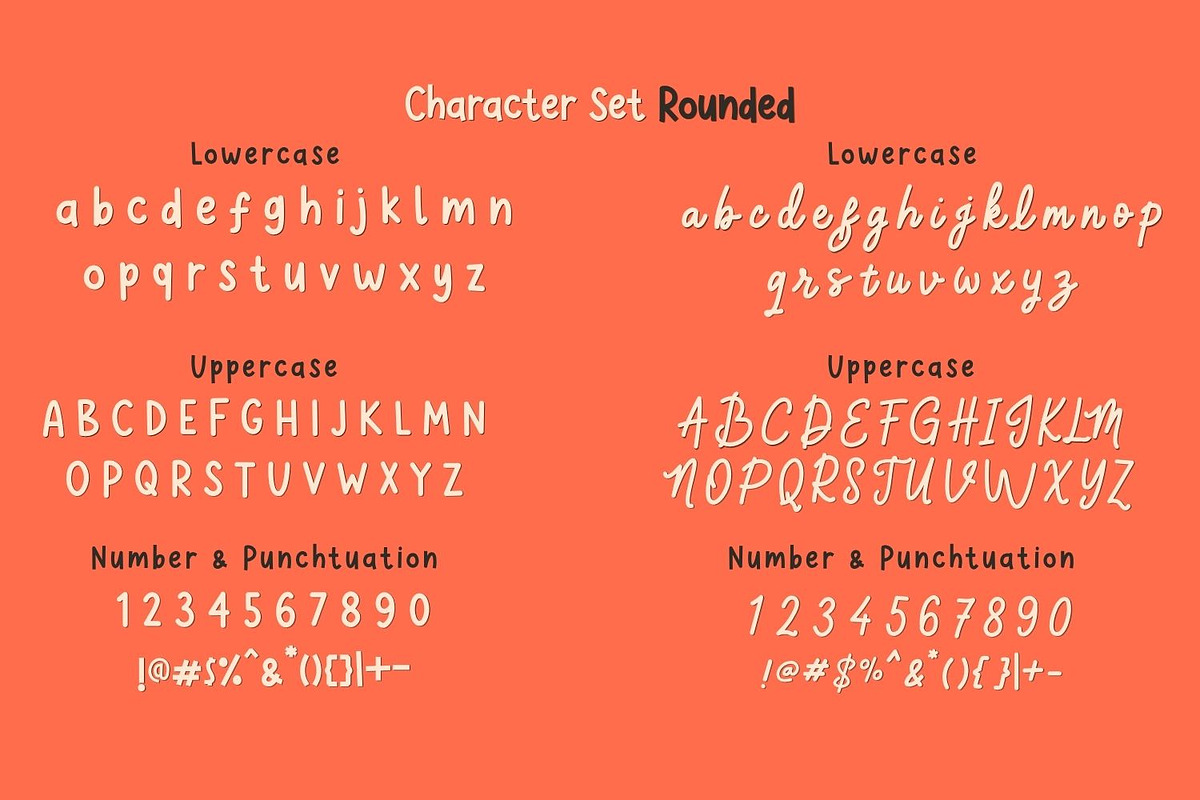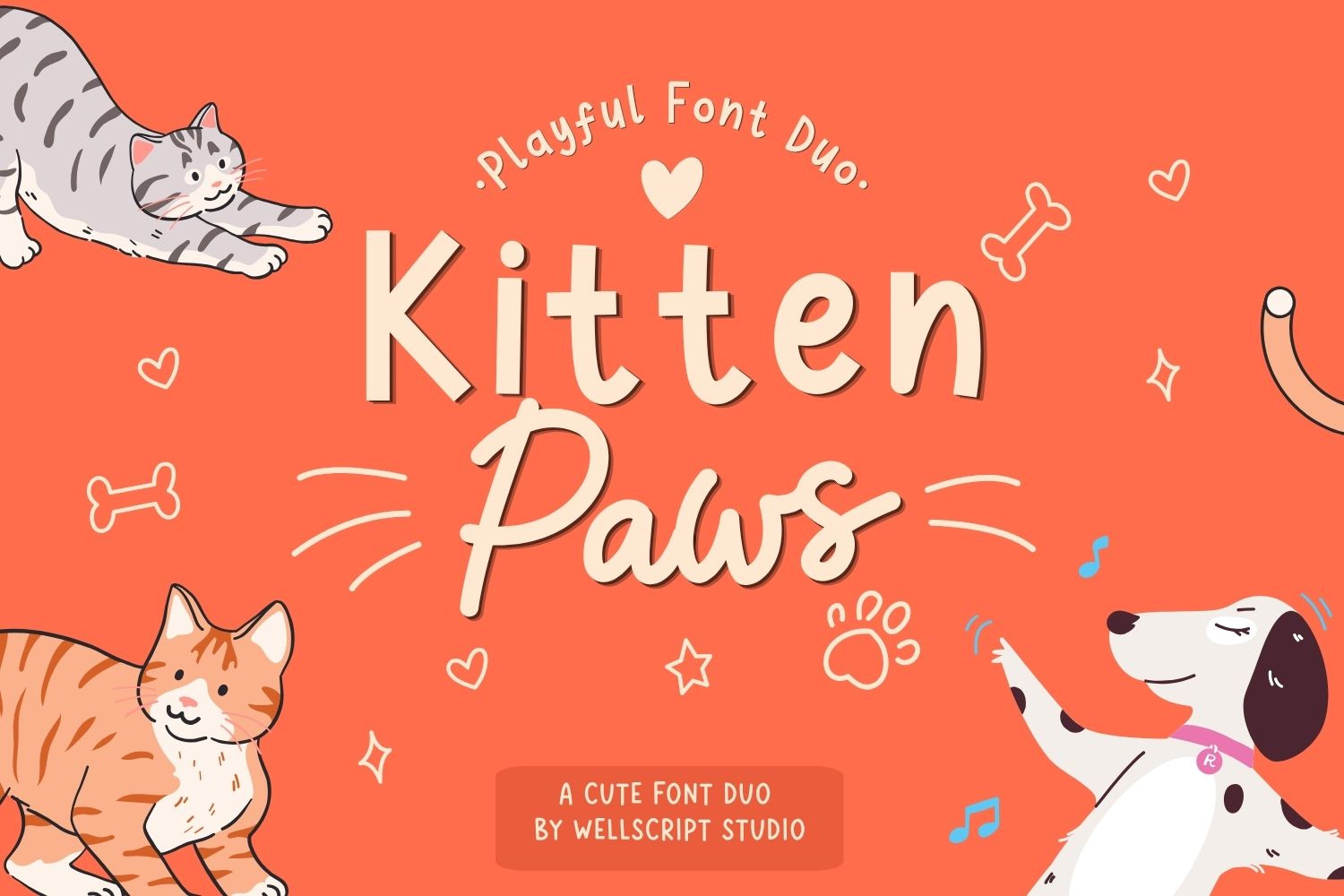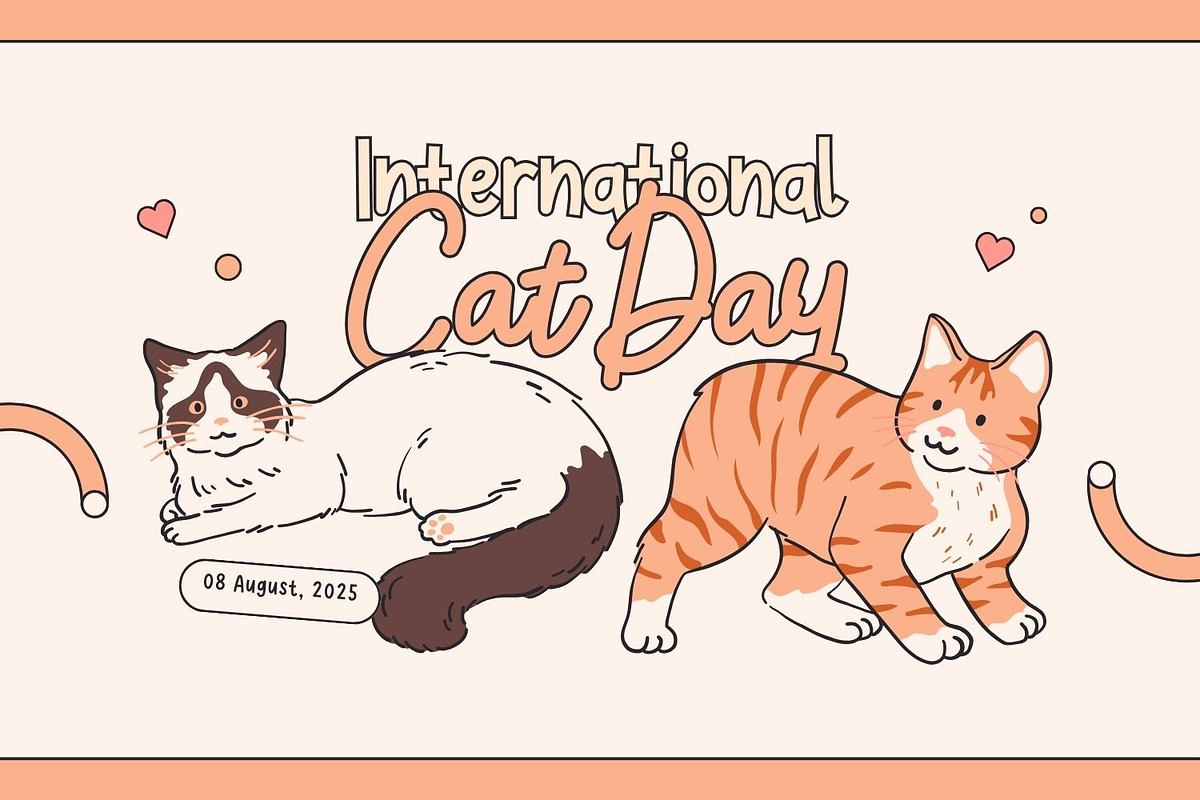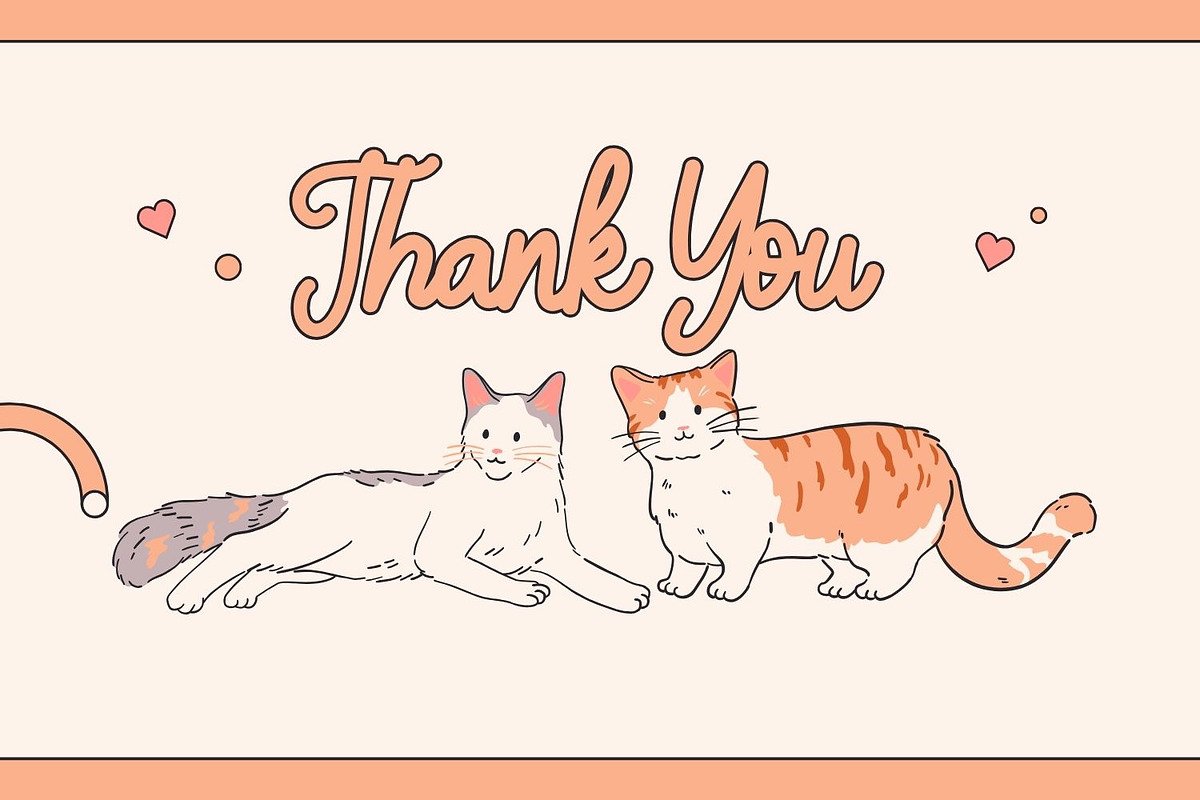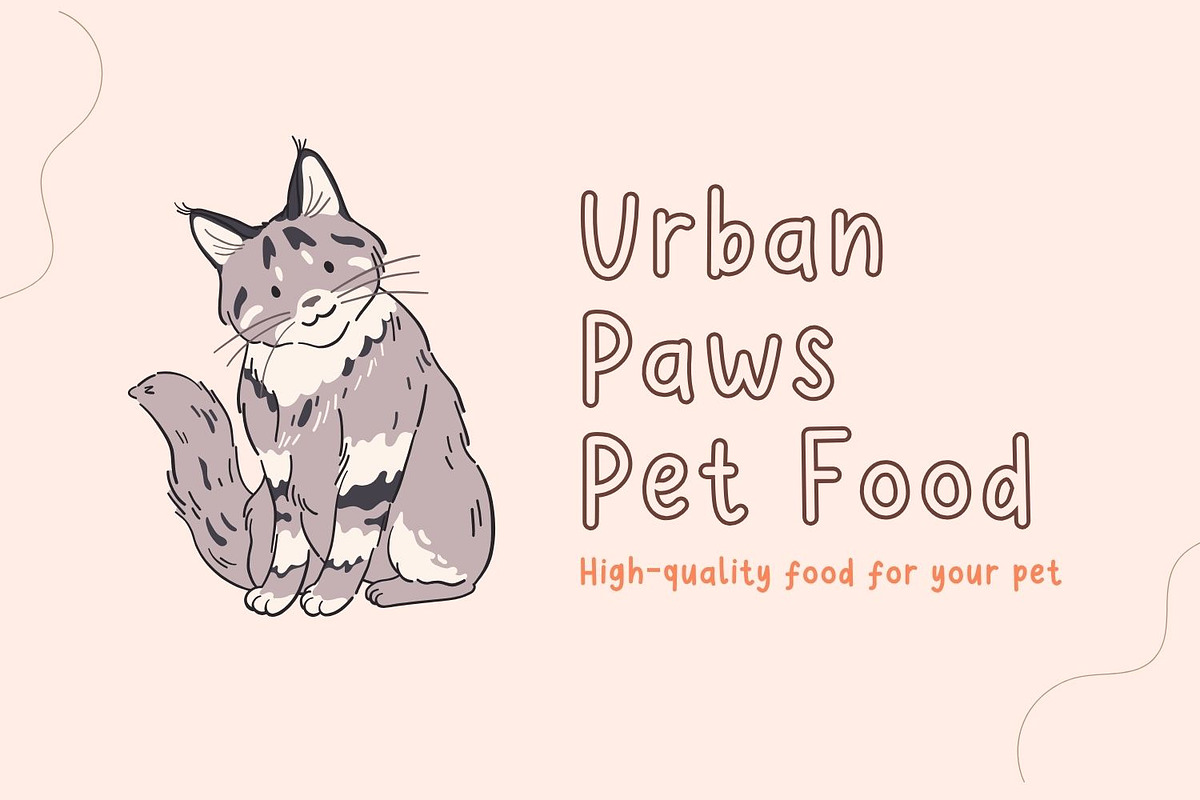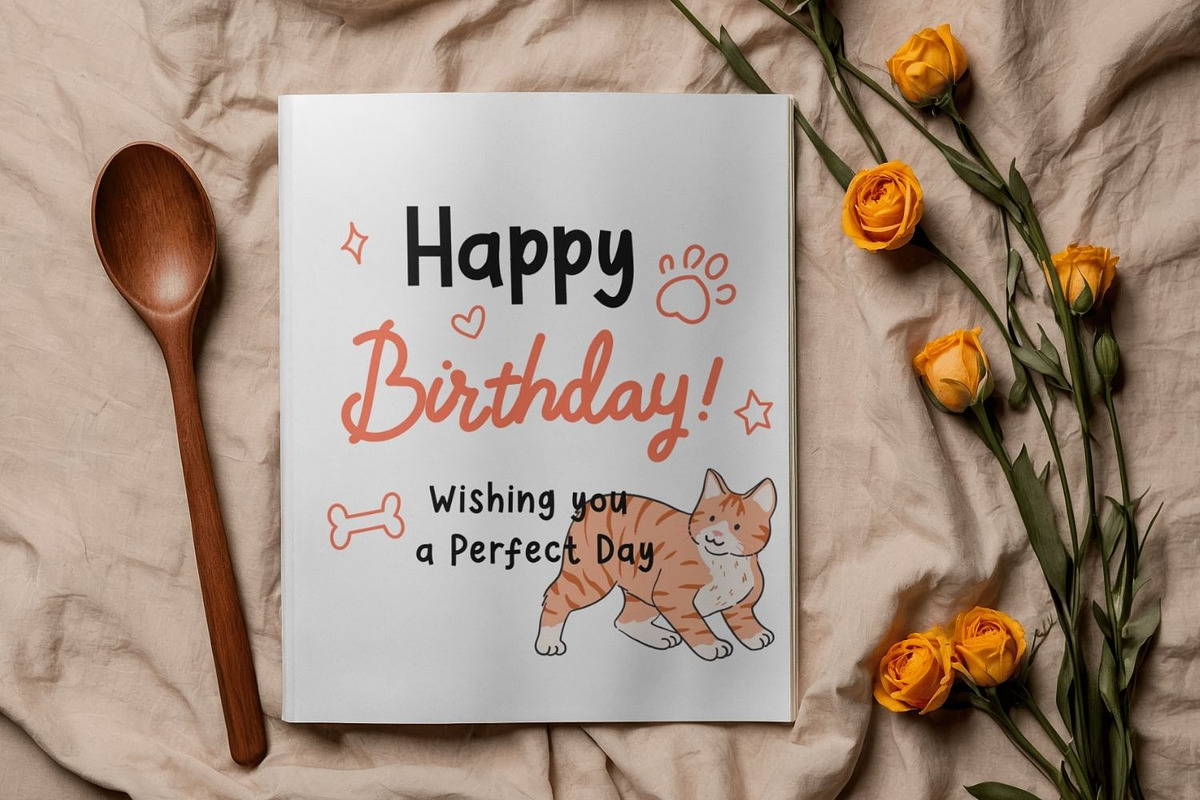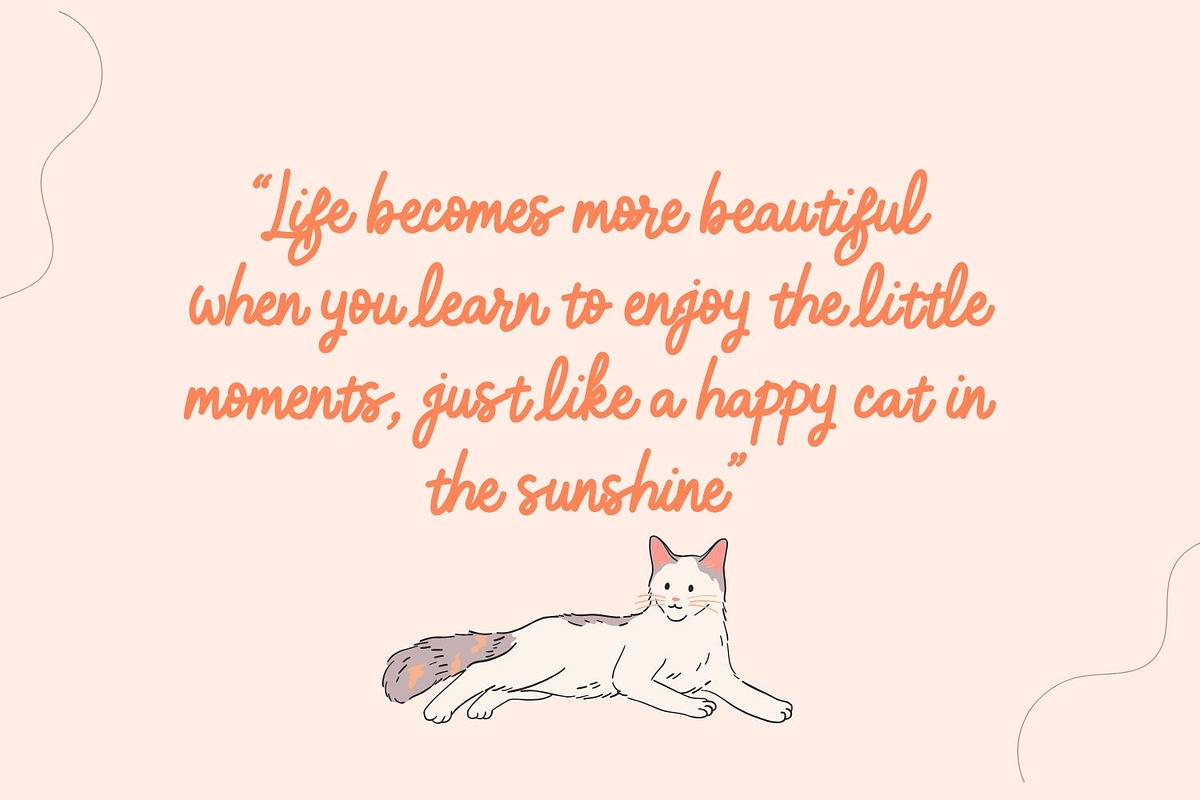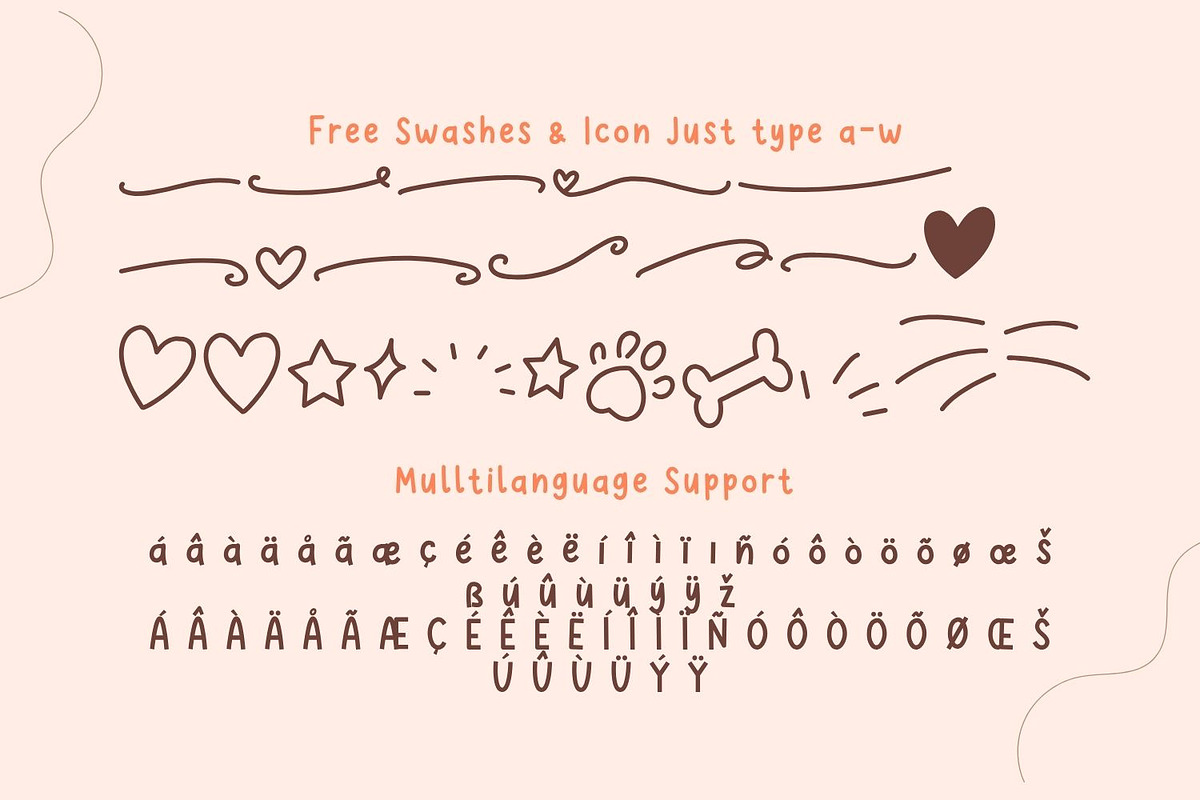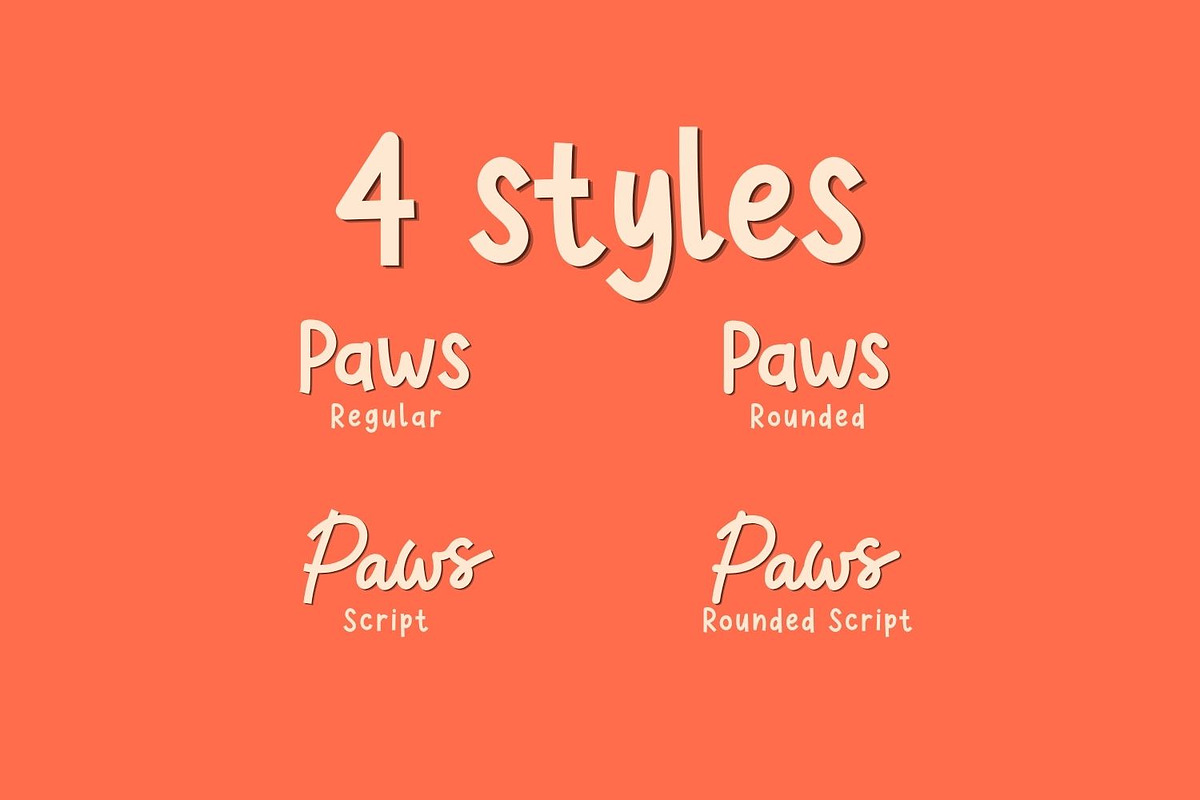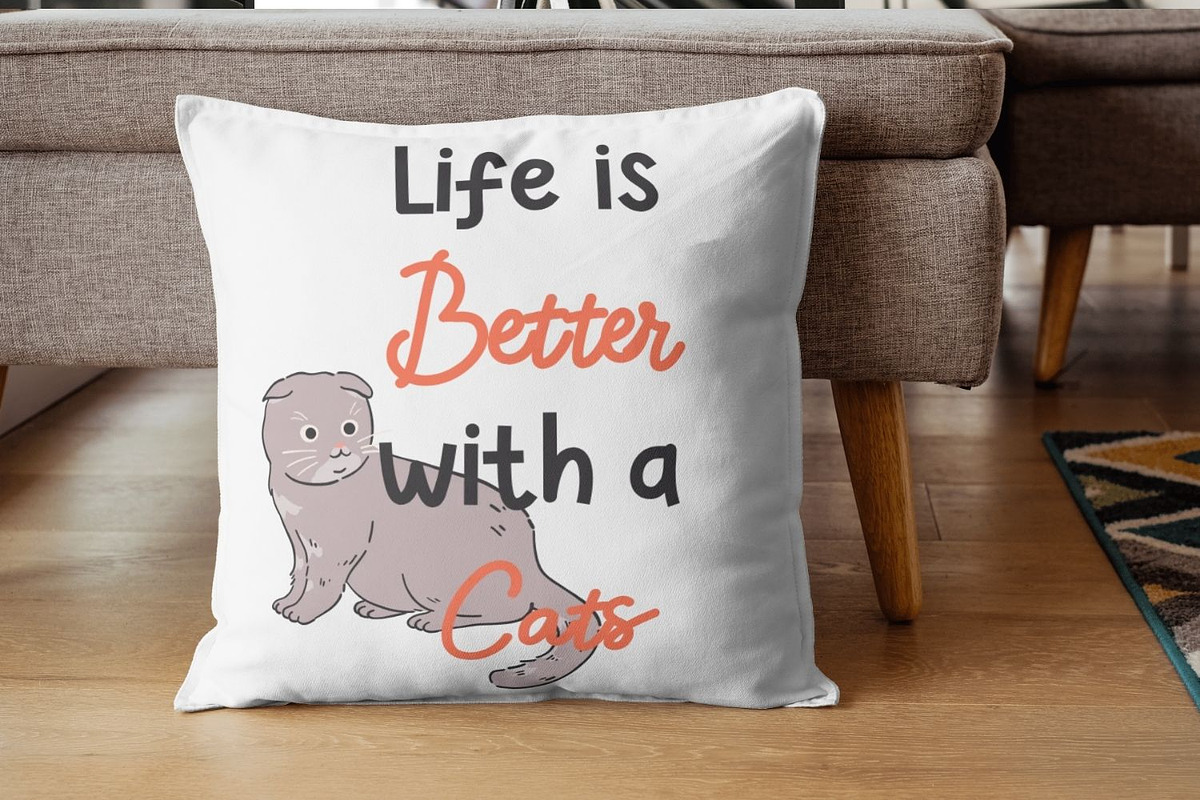
Kitten Paws - Playful Font Duo
Meet Kitten Paws, a cute and playful font duo designed to bring warmth, joy, and charm to your creative projects. With its soft handwritten style, sweet rounded letters, and lovely script look, this font is perfect for creating adorable and memorable designs.
Kitten Paws is ideal for pet branding, kids products, packaging, stickers, greeting cards, invitations, social media posts, merchandise, handmade crafts, and many other cute design projects.
Ligatures, alternates, and swashes
Free swashes and icons
Kitten Paws includes multilingual support for: Afrikaans, Albanian, Czech, Danish, Dutch, English, Estonian, Finnish, French, German, Hungarian, Italian, Latvian, Lithuanian, Norwegian, Polish, Portuguese, Slovak, Slovenian, Spanish, and Swedish.